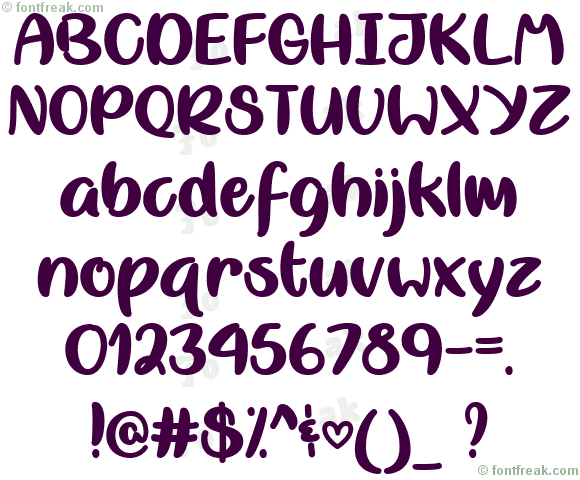
Misti Nicole Regular
About Misti Nicole Regular
Misti Nicole Regular is a charming handwritten font that embodies a casual yet polished aesthetic, perfect for a variety of creative projects. Designed by Misti Hammers in 2019, this font showcases a playful stroke weight with a slight contrast that adds character without sacrificing readability. The smooth curves and gentle flourishes make it a delightful choice for those seeking a personal touch in their designs. The spacing is well-balanced, ensuring that each letter stands out while maintaining a cohesive flow across words.
This font is particularly well-suited for wedding invitations, where its elegant yet informal style can convey heartfelt sentiments. Additionally, it shines in creating restaurant menus, giving a warm and inviting feel that complements gourmet offerings. Misti Nicole Regular also works beautifully for social media graphics, allowing content creators to engage their audience with a friendly and approachable tone. Movie posters can benefit from its unique charm, helping to capture the essence of a film's storyline with a touch of whimsy.
What sets Misti Nicole Regular apart is its ability to blend uniqueness with versatility. Its handwritten quality creates a sense of authenticity, making it ideal for projects that require a personal touch. Whether you are designing for an event, a business, or personal use, Misti Nicole Regular font free download provides a delightful option to elevate your work.